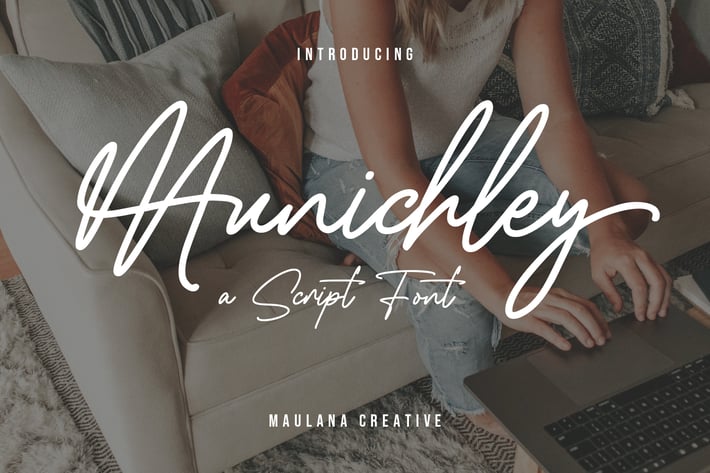
Munichly Signature Script Font
Munichley is an expressive casual signature script font. With mono-line consist stroke, fun character with a bit of ligatures and alternates. To give you an extra creative work. Portuis GingerMunichleylogo design, Social media, Movie Titles, Books Titles, a short text even a long text letter and good for your secondary text font with sans or serif. Make a stunning work with Munichley font.